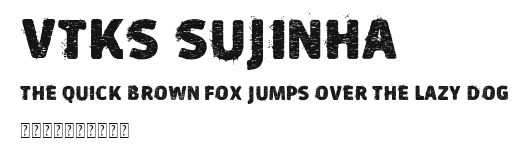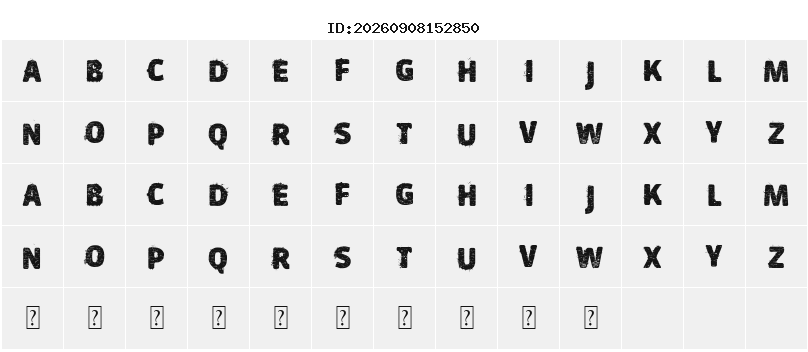
• Font Name: vtks sujinha
• Full Font Name: vtks sujinha
• Designer: DOUGLAS VITKAUSKAS
About vtks sujinha.ttf
vtks sujinha.ttf is a modern, elegant sans-serif font designed for ultimate readability and visual harmony. Perfect for branding, headlines, web design, and print materials.